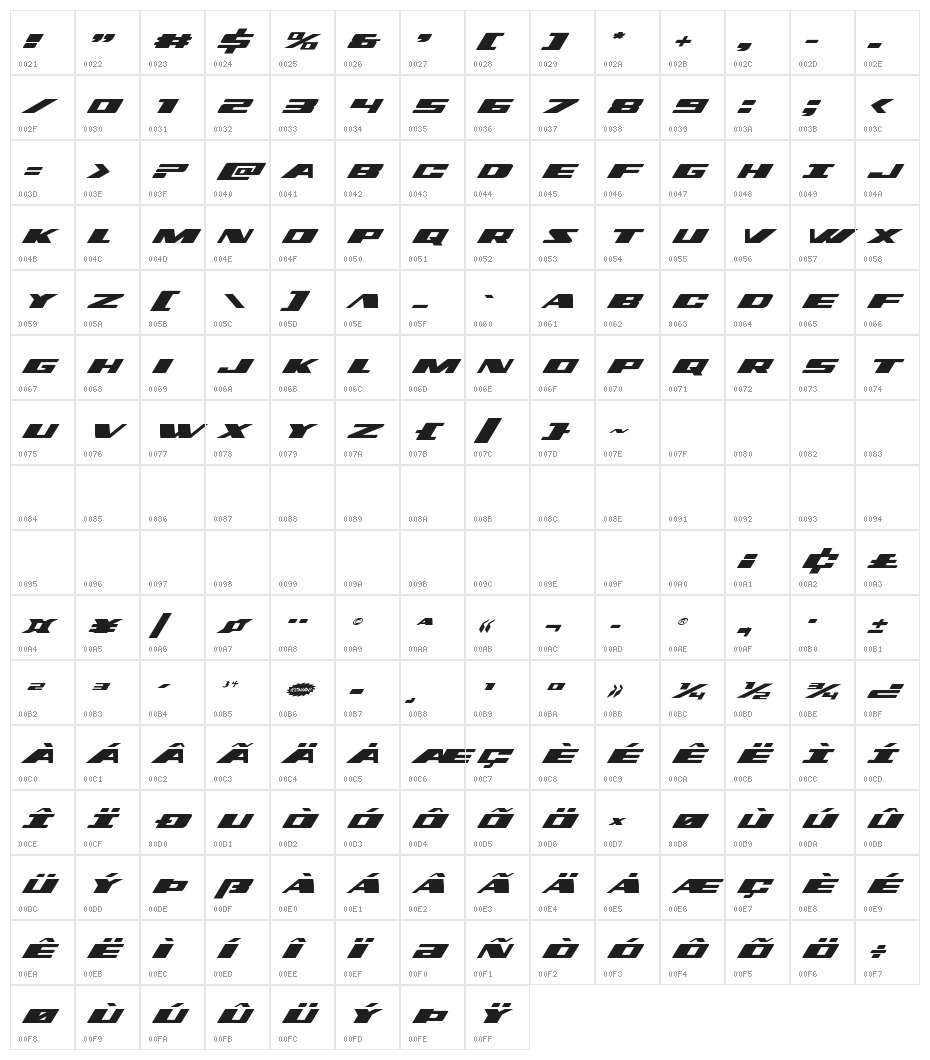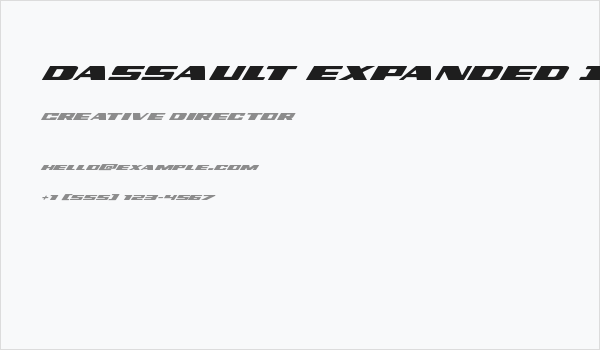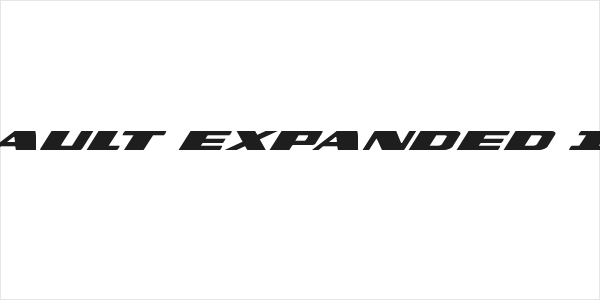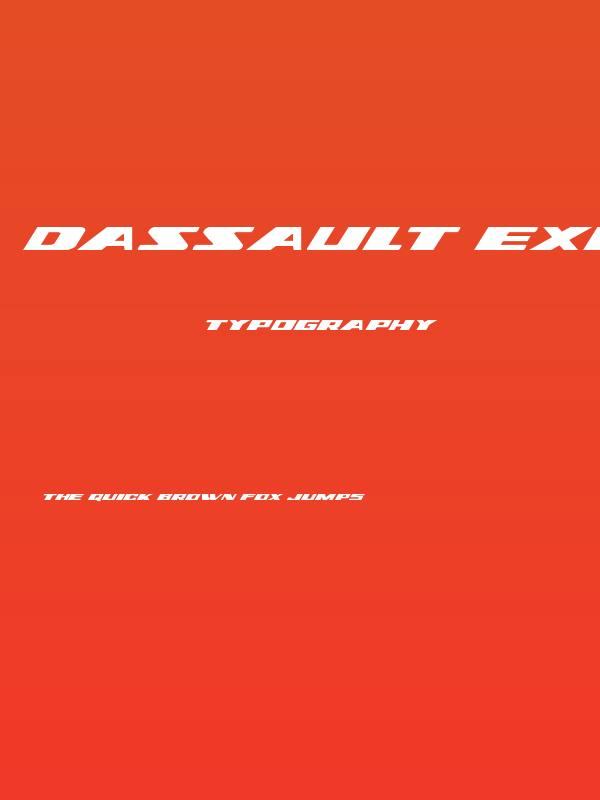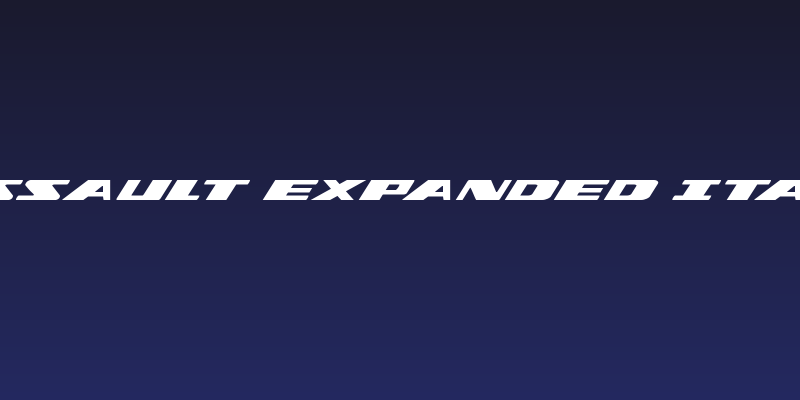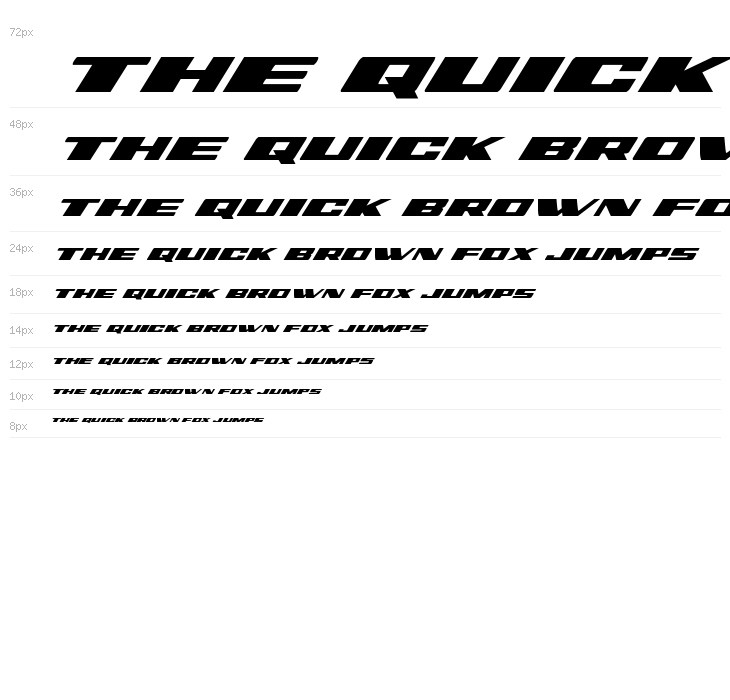
Dassault Expanded Italic Font
Dassault Expanded Italic Description
This font features a bold and dynamic style with an italic slant, giving it a sense of motion and energy. The characters are expanded, providing a wide stance that enhances readability while maintaining a strong visual impact. The sharp angles and clean lines contribute to a modern and futuristic appearance, making it suitable for projects that require a bold statement. The numbers and special characters are designed to match the assertive style of the letters, ensuring consistency across all text elements.
| Proposed Projects | Ideal for sports branding, automotive designs, futuristic themes, and dynamic advertising campaigns. |